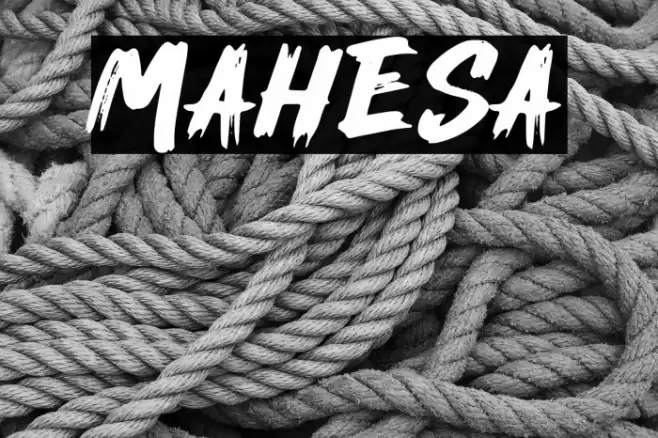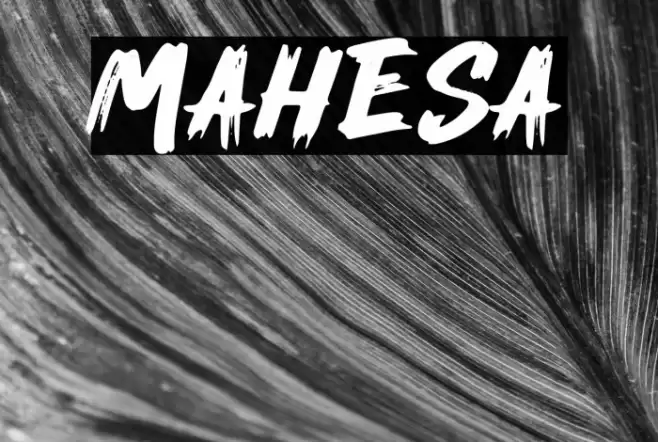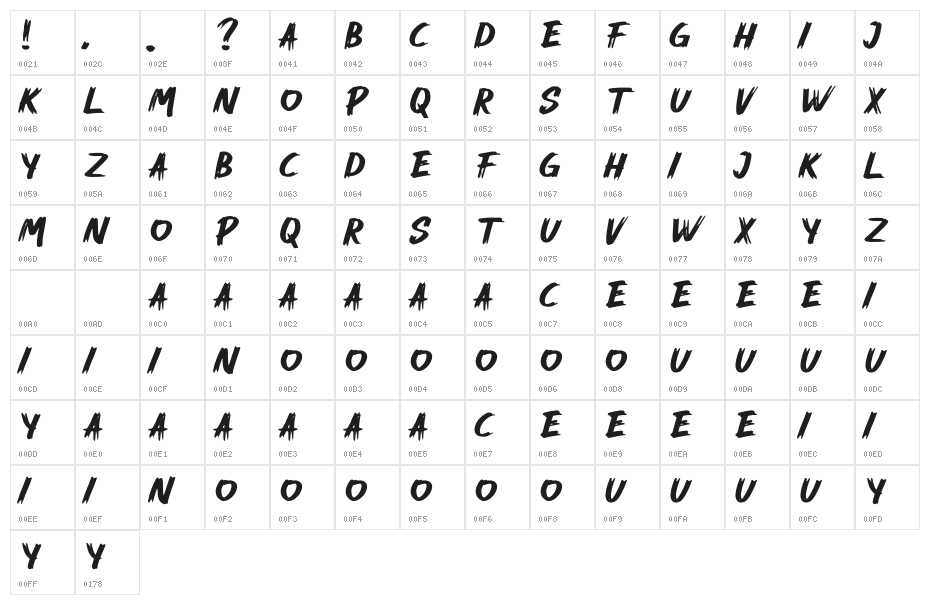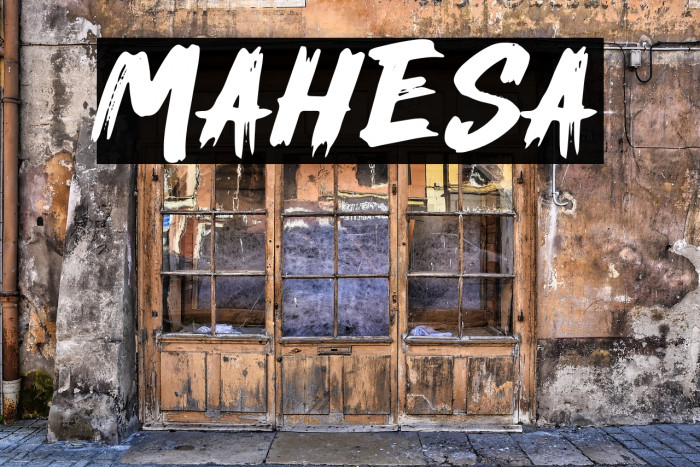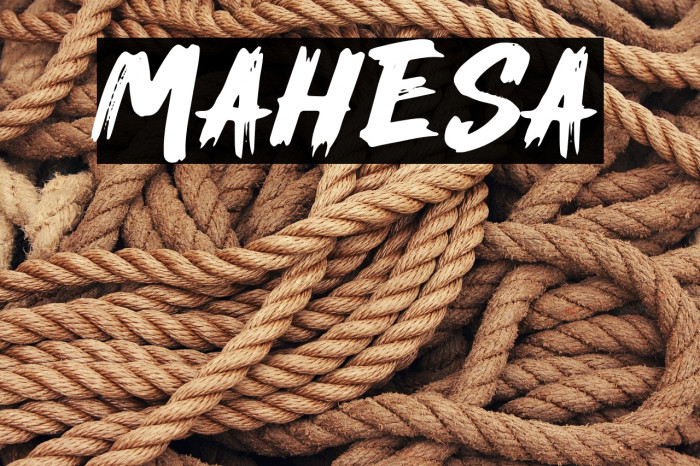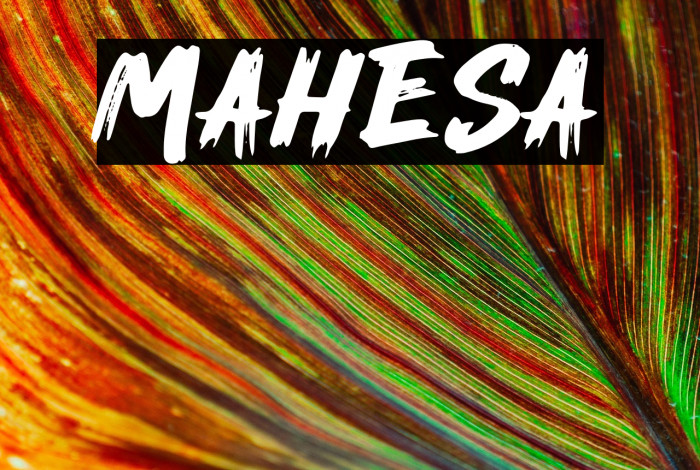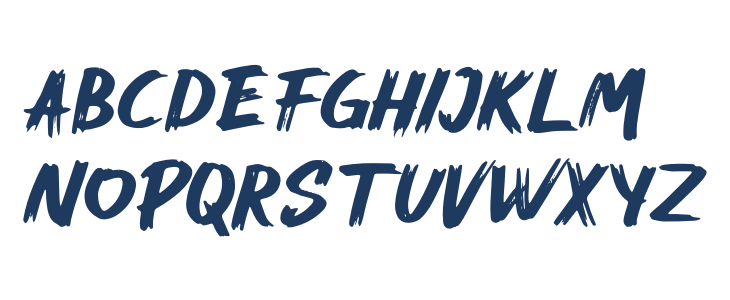
Mahesa Font
Mahesa Description
This font features a bold and dynamic brush style, characterized by its energetic strokes and slightly irregular edges. The uppercase letters are particularly striking, with a sense of movement and flair that suggests a hand-painted aesthetic. The lowercase letters maintain this expressive quality, offering a cohesive look across both cases. The numerals are equally bold, ensuring they stand out in any design. The special characters, including punctuation marks, are designed to complement the overall style, adding to the font's versatility. This font is ideal for projects that require a strong visual impact, such as posters, headlines, and branding materials.
A bold, brush-style font with dynamic and expressive strokes from Regular fonts.
- Proposed Projects: Ideal for posters, headlines, branding, and any design requiring a strong visual impact.